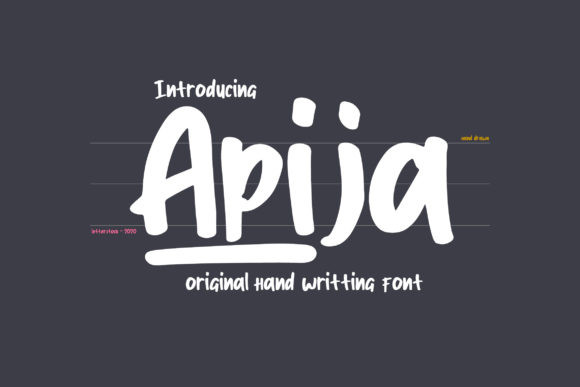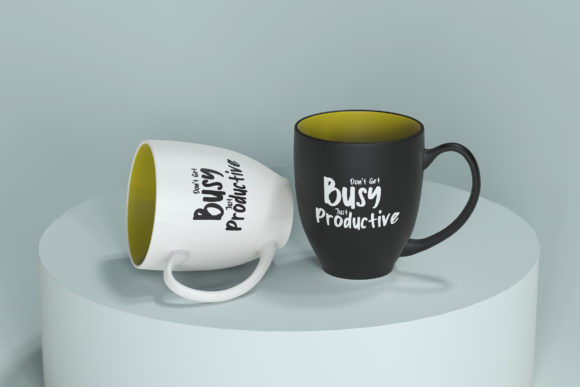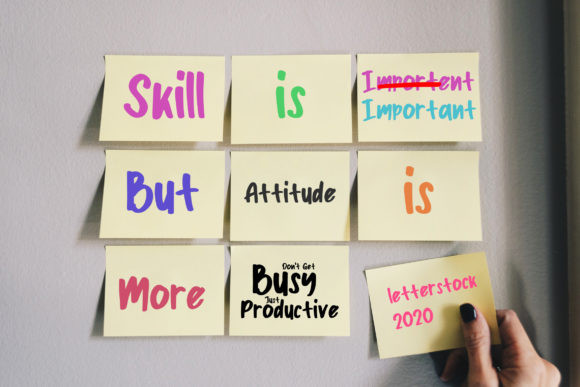
Apija Font
Apija is a fun and cute display font with an incredible friendly feel. It will elevate a wide range of design projects to the highest level, be it branding, headings, wedding designs, invitations, signatures, logos, labels, and much more!